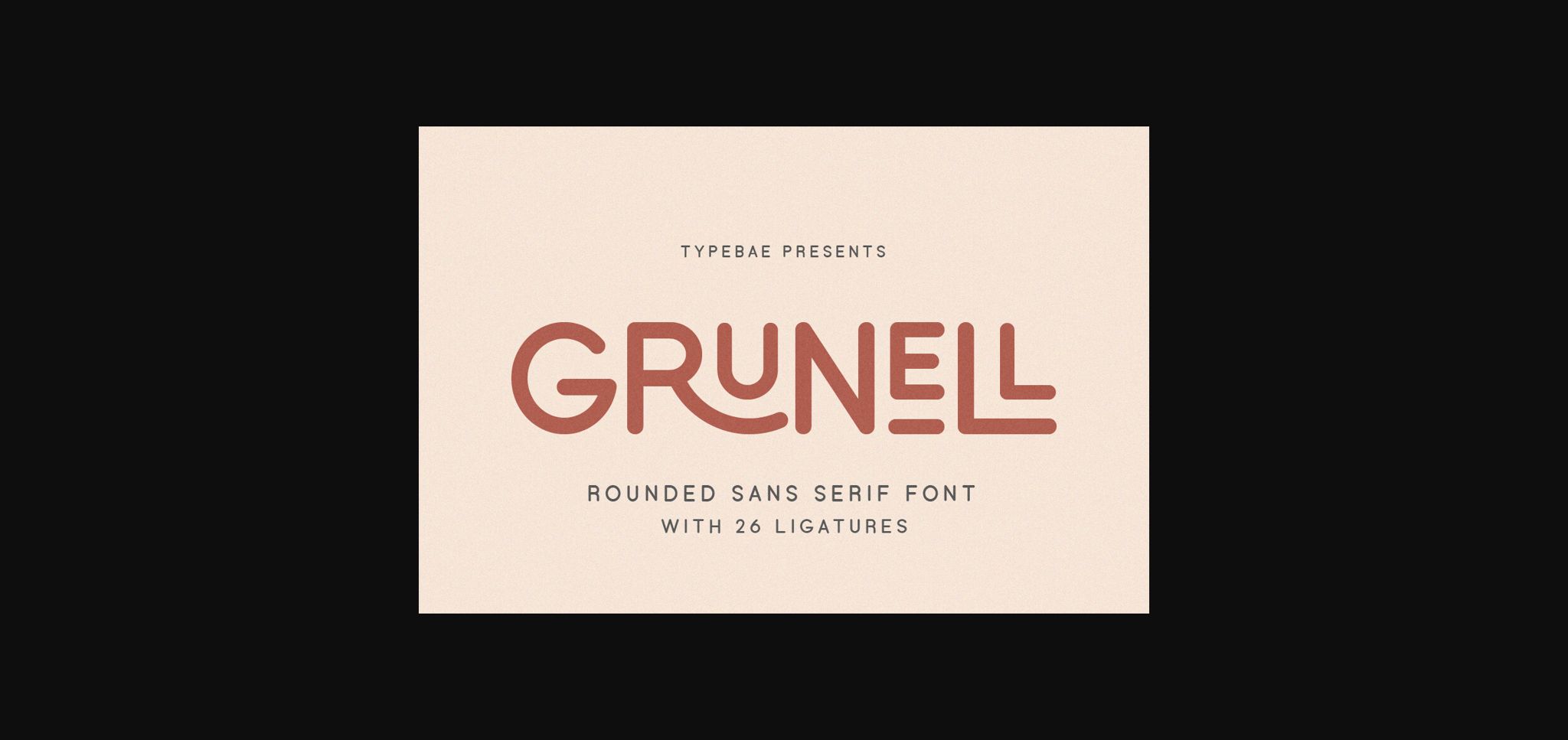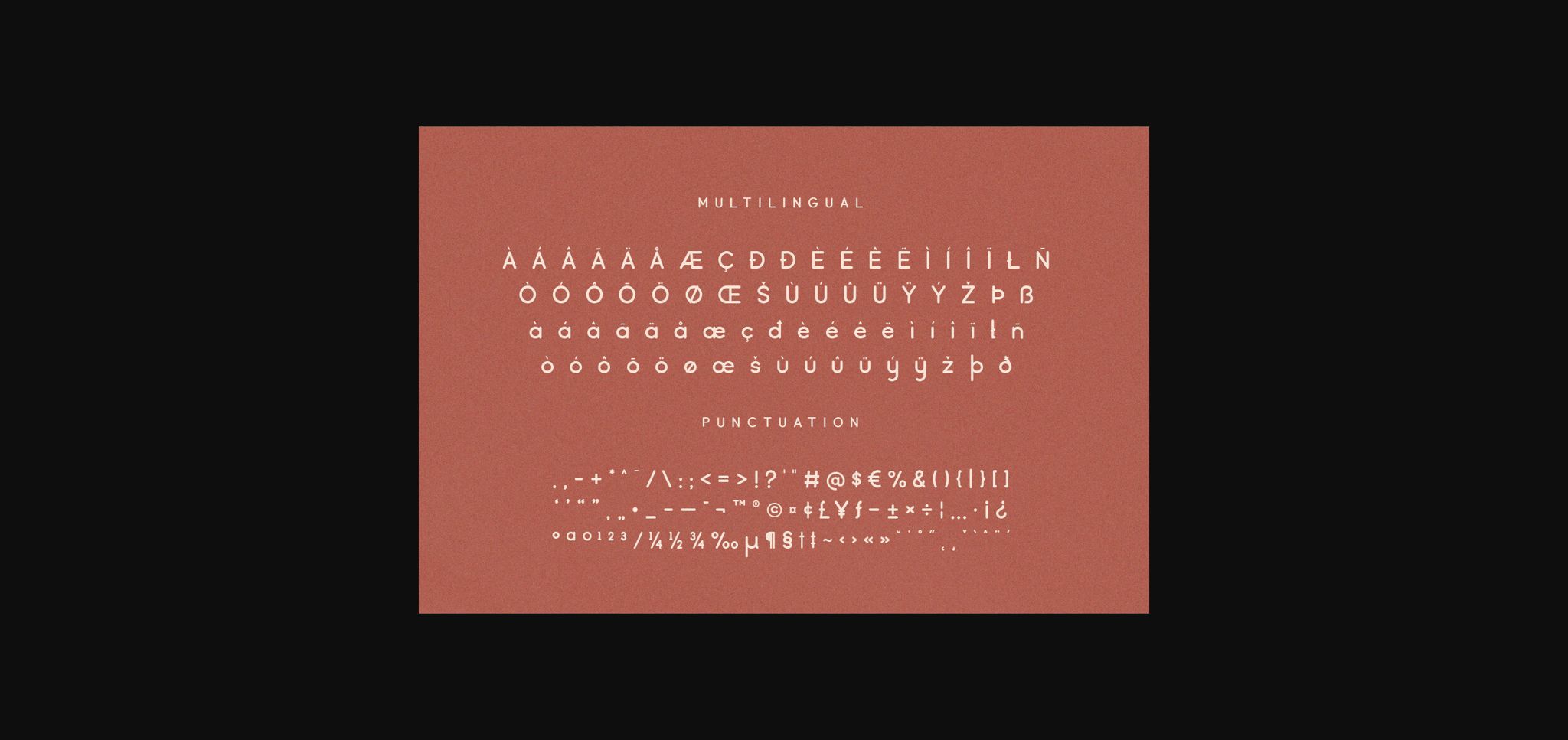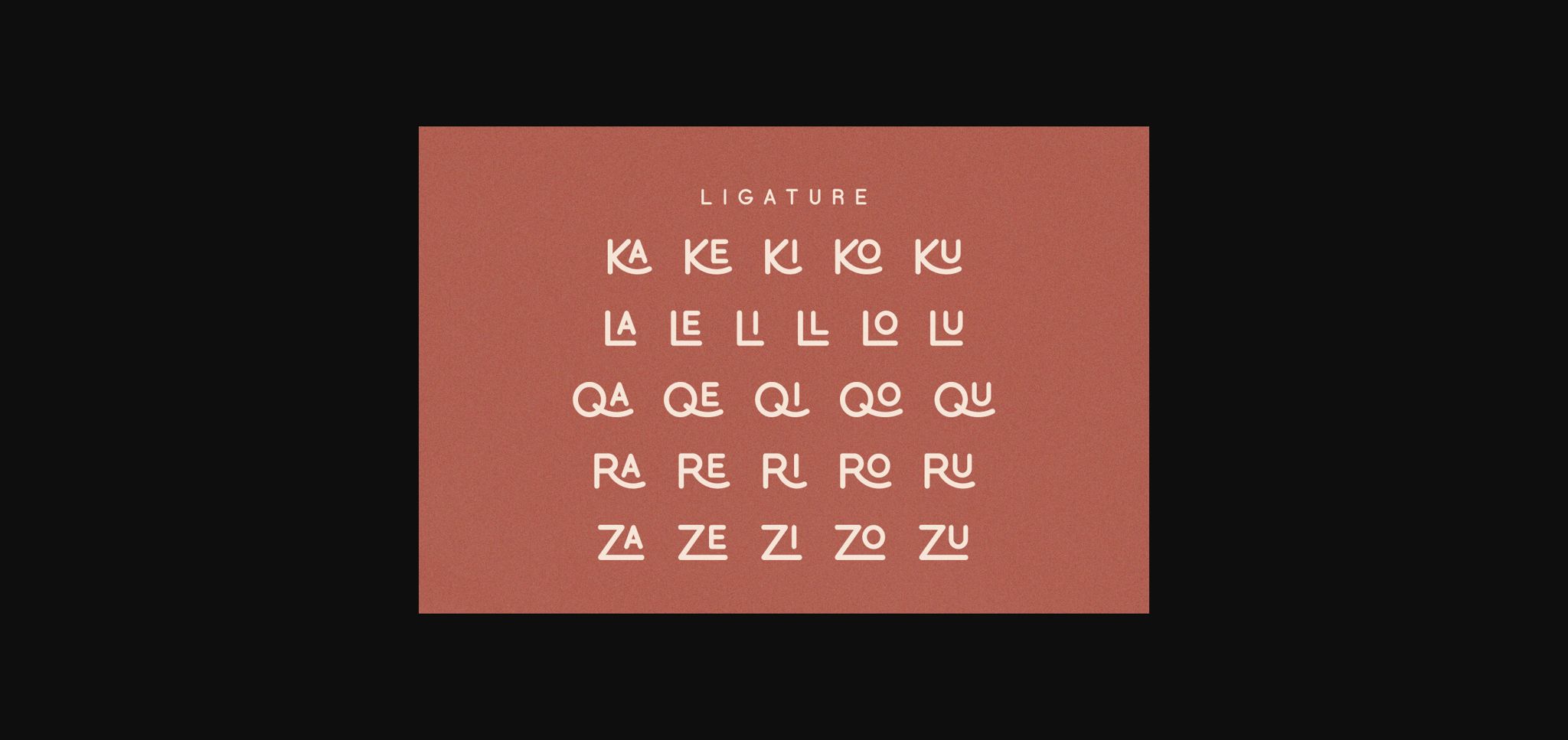
About Grunell Font
Grunell is a rounded sans-serif font that embodies a modern and friendly aesthetic. This font boasts a collection of 26 unique ligatures, allowing for creative and visually appealing typographic compositions. With clean and legible letterforms, it works well for both digital and print applications.